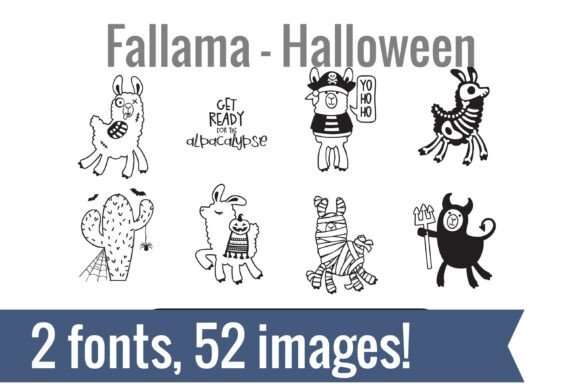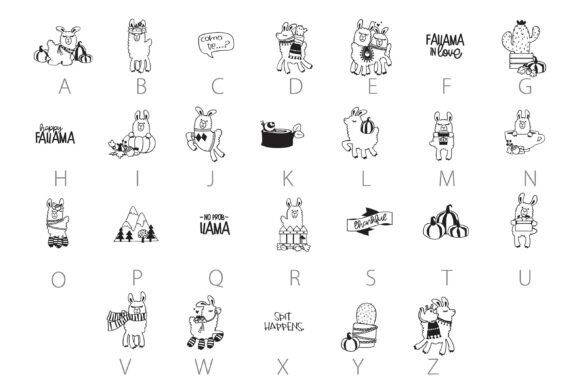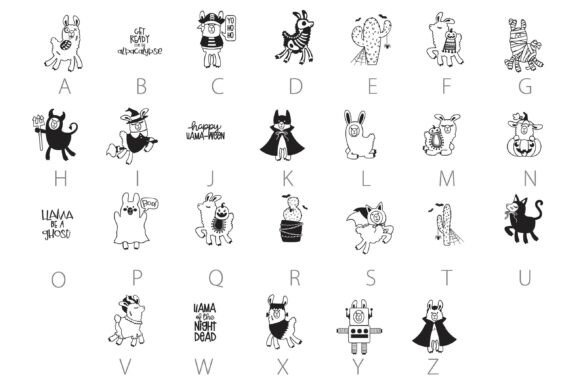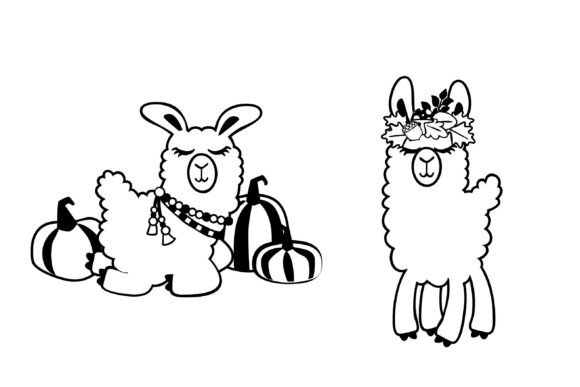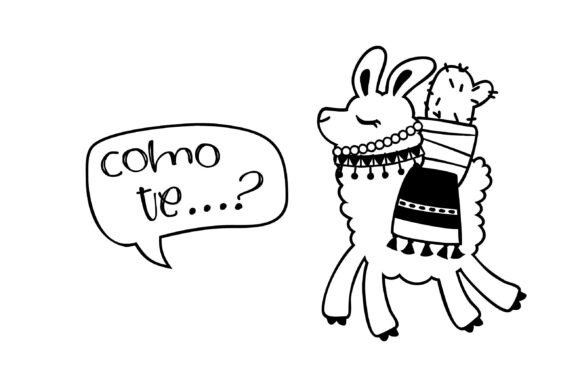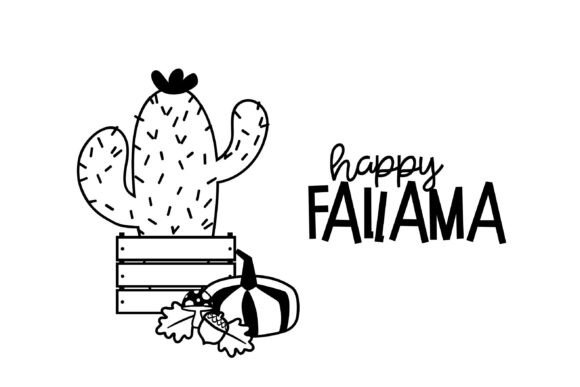
Introduction to Fallama Dingbats Font
Celebrate the cozy charm of autumn with a quirky twist using the Fallama Dingbats Font Duo.
This playful collection includes two fonts featuring adorable fall-themed and Halloween-ready llamas, pumpkins, cacti, and pun-filled illustrations From โFallama in loveโ to a spooky โAlpacalypse,โ these fun, hand-drawn designs are perfect for seasonal crafts, greeting cards, party invites, and apparel.
Key Features of Fallama Dingbats Font